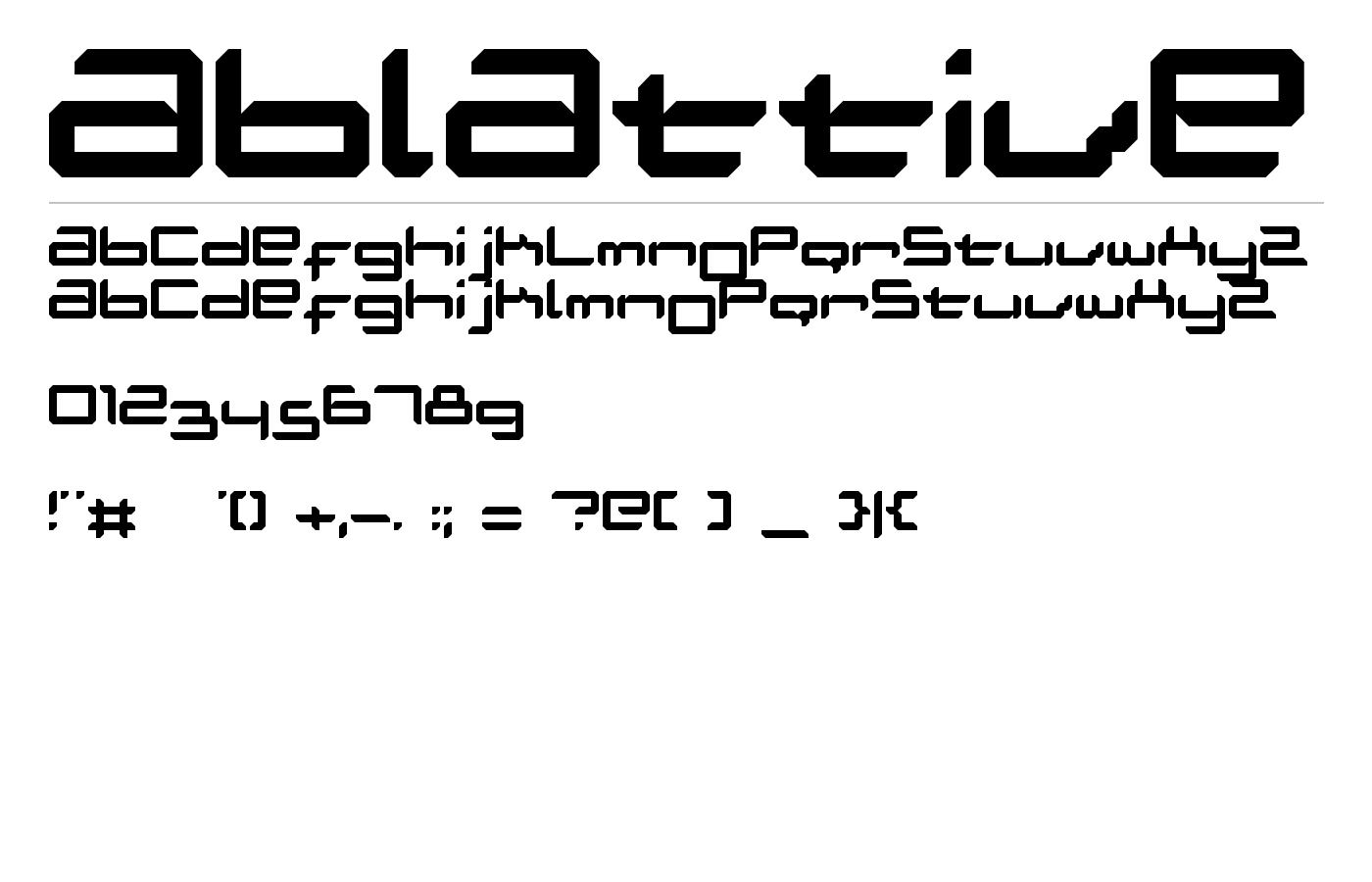
Ablattive is a bold, geometric sans serif font with a modern, digital aesthetic characterized by sharp, angular edges and a square-like structure. Its distinctive blocky letterforms and uniform stroke weight give it a futuristic and technical feel, making it ideal for use in technology branding, posters, and digital interfaces where a strong, contemporary presence is desired.